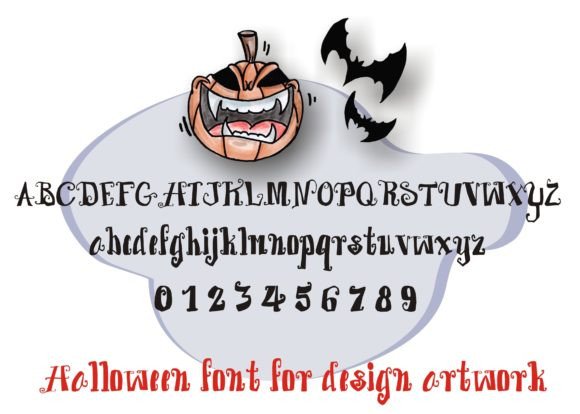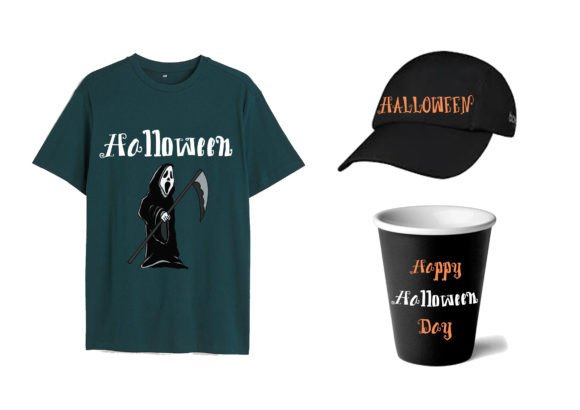
Unleash the Spooky Spirit with Halloween Font: A Comprehensive Guide
Halloween is just around the corner, and what better way to get into the spooky spirit than with a font that’s as eerie as it is exciting? Look no further than the Halloween Font, a thick-lettered and spooky display font that’s perfectly suitable for any Halloween-related project or crafty idea. In this article, we’ll dive into the world of Halloween Font, exploring its features, uses, and benefits for designers and crafters alike.
What is Halloween Font?
Halloween Font is a unique and eye-catching display font that’s specifically designed to capture the essence of the spookiest night of the year. With its thick, bold letters and eerie feel, this font is sure to add a touch of Halloween magic to any project. Whether you’re designing invitations, decorations, or merchandise, Halloween Font is the perfect choice for getting into the holiday spirit.
Features of Halloween Font
So, what makes Halloween Font so special? Here are just a few of its key features:
- Thick-lettered design: Halloween Font features thick, bold letters that are perfect for making a statement.
- Spooky feel: This font has an undeniably eerie feel that’s sure to send shivers down the spines of your audience.
- Versatile: Whether you’re designing for print or digital, Halloween Font is the perfect choice for any Halloween-related project.
- Easily customizable: With Halloween Font, the only limit is your imagination. Use it as-is or experiment with different colors, textures, and effects to create a unique look.
Uses for Halloween Font
So, what can you do with Halloween Font? The possibilities are endless! Here are just a few ideas to get you started:
- T-Shirts and Apparel: Design spooky chic t-shirts, hoodies, and hats that are perfect for Halloween.
- Postcards and Invitations: Create eye-catching invitations and postcards that will set the tone for any Halloween party or gathering.
- Decorations and Signage: Use Halloween Font to create spooky decorations and signage for your home or business.
- Digital Graphics: Create eerie digital graphics, such as social media posts and blog headers, that are perfect for the Halloween season.
- Crafting and DIY Projects: Use Halloween Font to add a touch of personality to your crafting and DIY projects, such as pumpkin carvings, Halloween-themed scrapbooking, and more.
So, why should designers and crafters choose Halloween Font for their projects? Here are just a few benefits:
- High-Quality Design: With its thick, bold letters and eerie feel, Halloween Font is sure to add a touch of professionalism to any project.
- Versatile: Whether you’re designing for print or digital, Halloween Font is the perfect choice for any Halloween-related project.
In conclusion, Halloween Font is the perfect choice for designers and crafters looking to add a touch of spooky spirit to their projects. With its thick-lettered design, eerie feel, and versatility, this font is sure to be a hit with anyone looking to create Halloween-themed designs. So why wait? Download Halloween Font today and get creative with your Halloween projects!